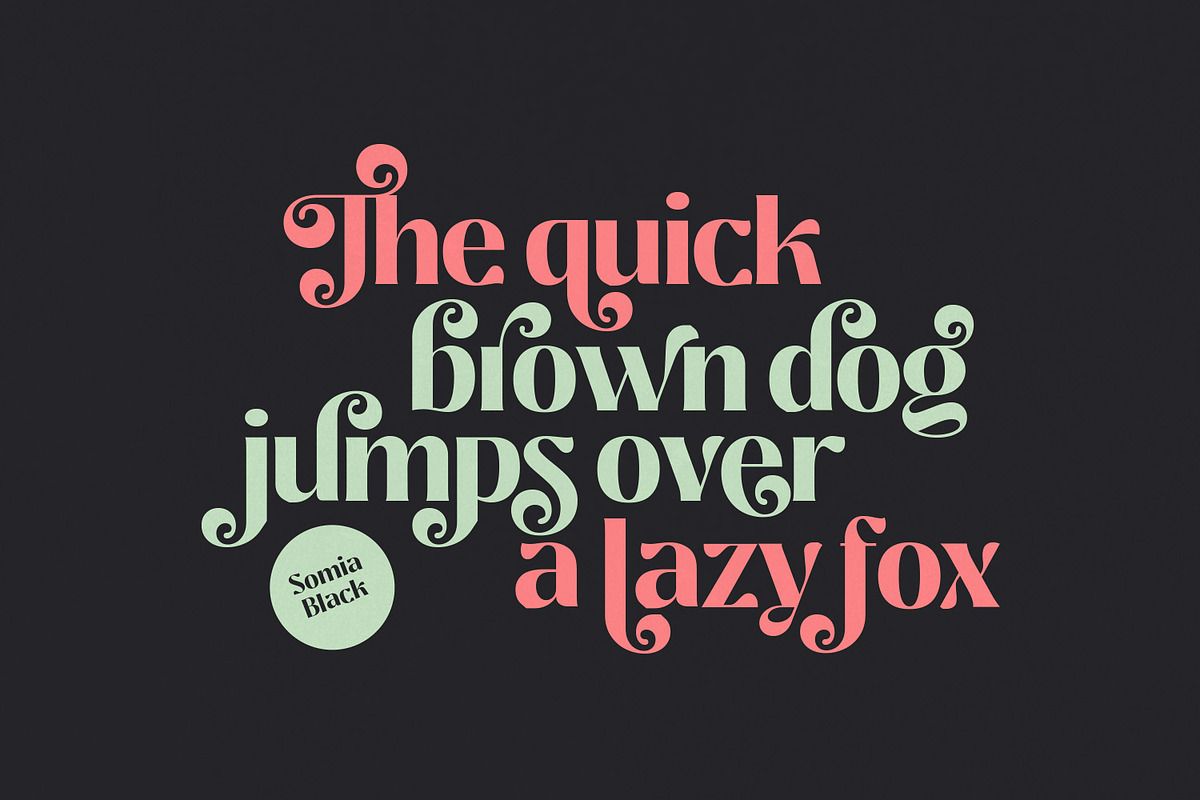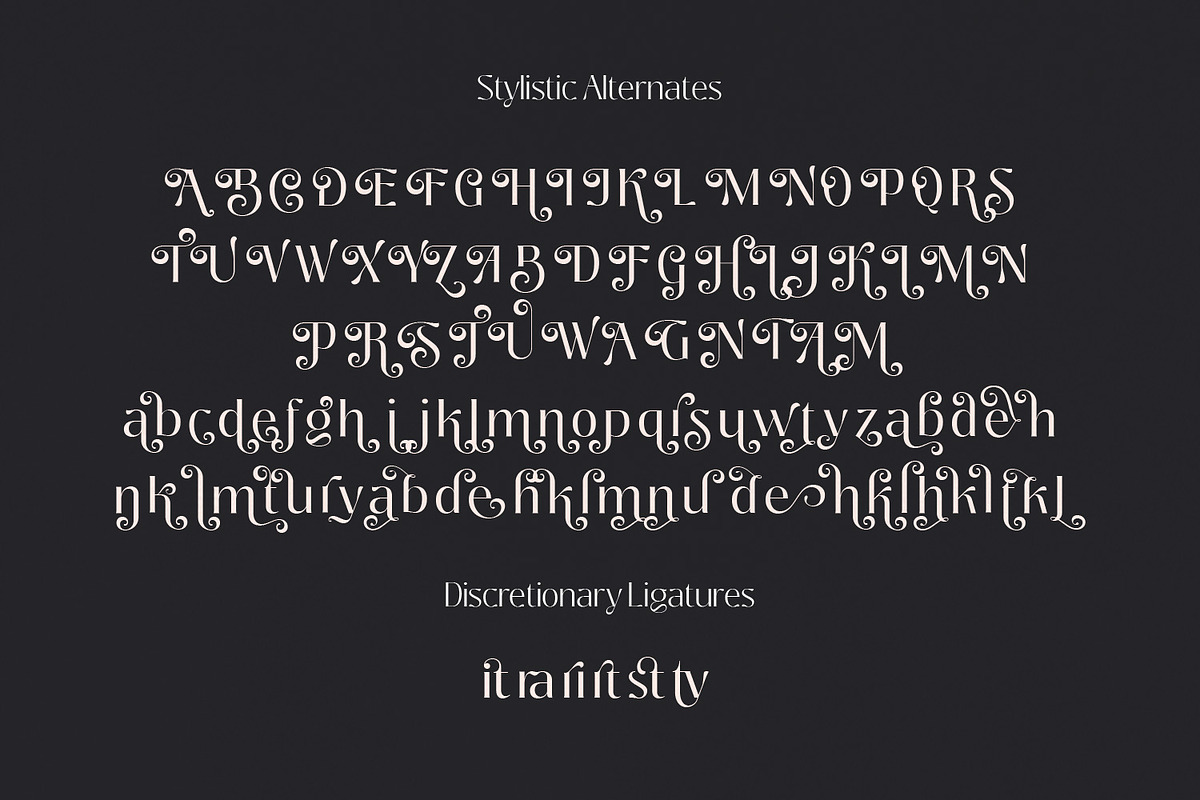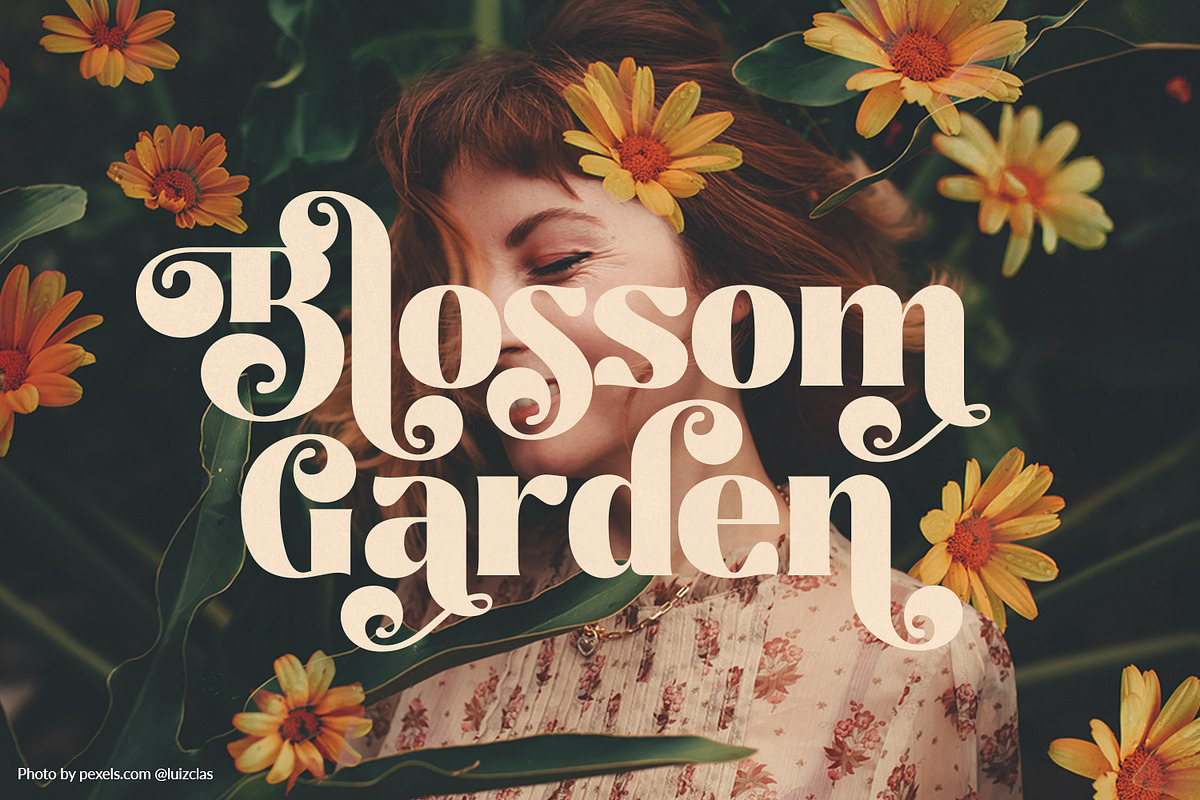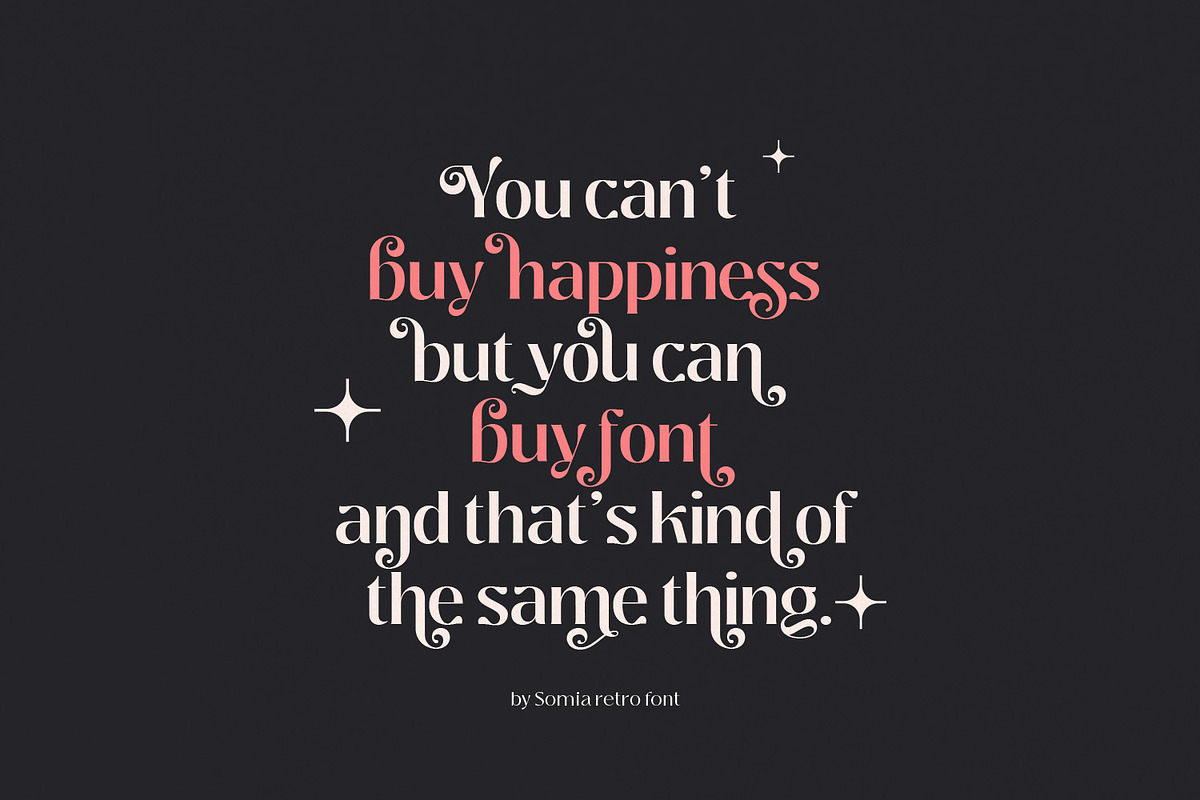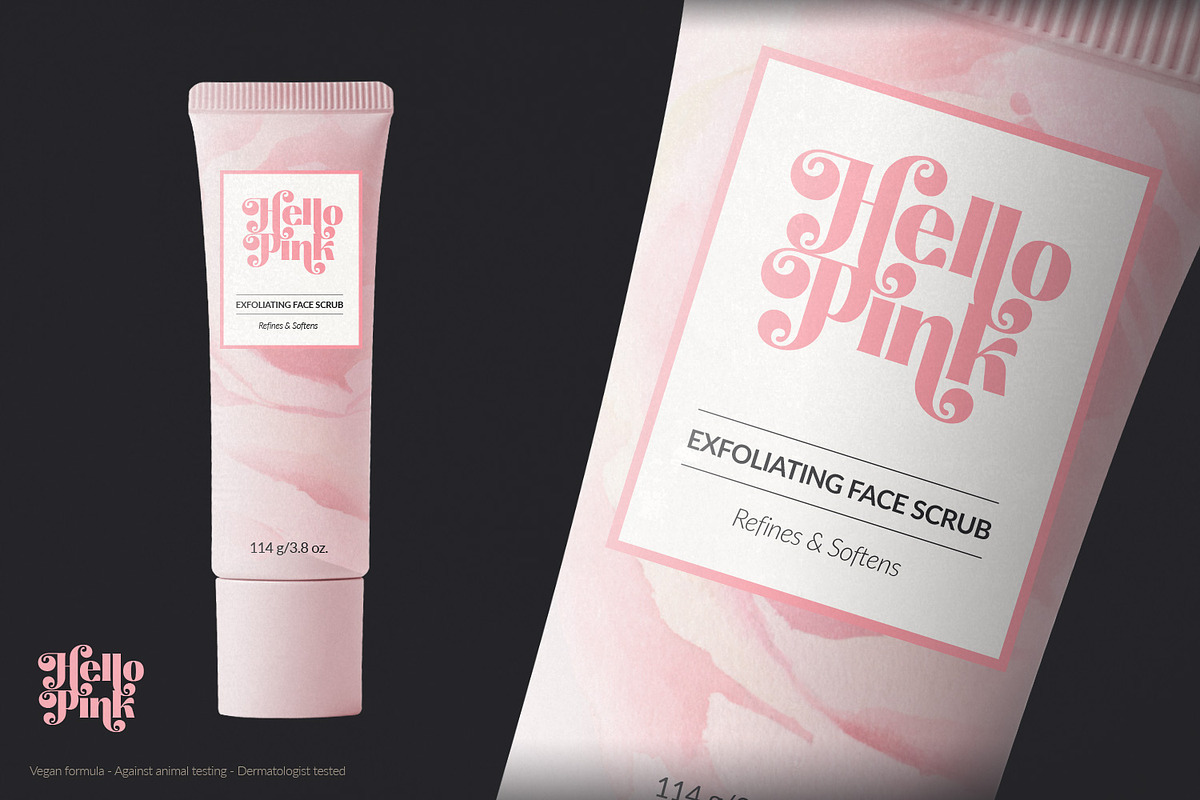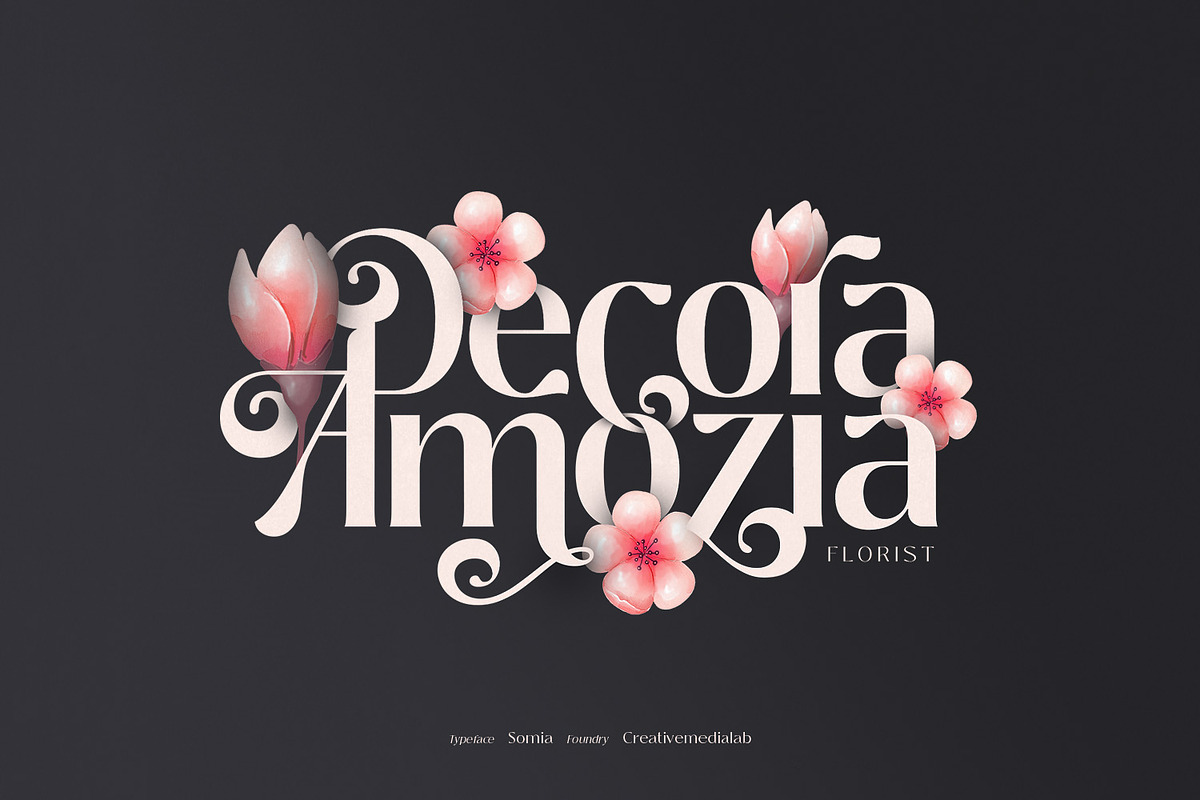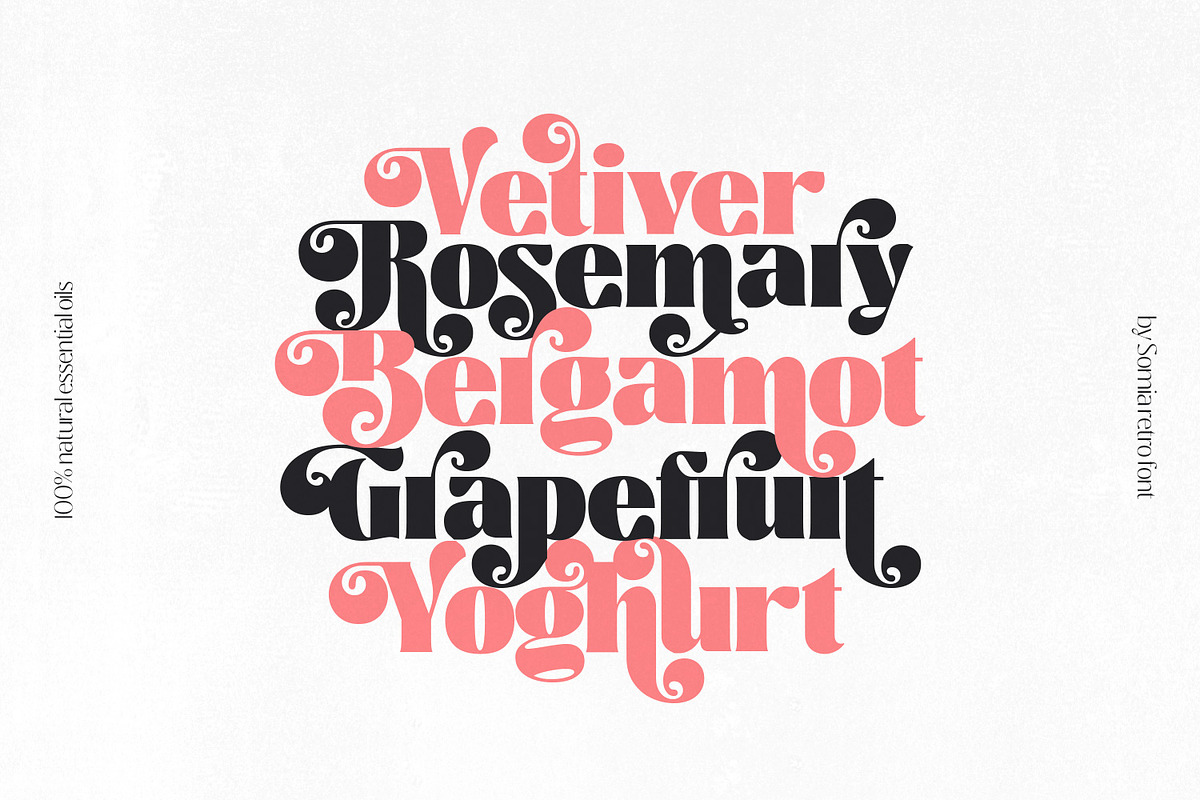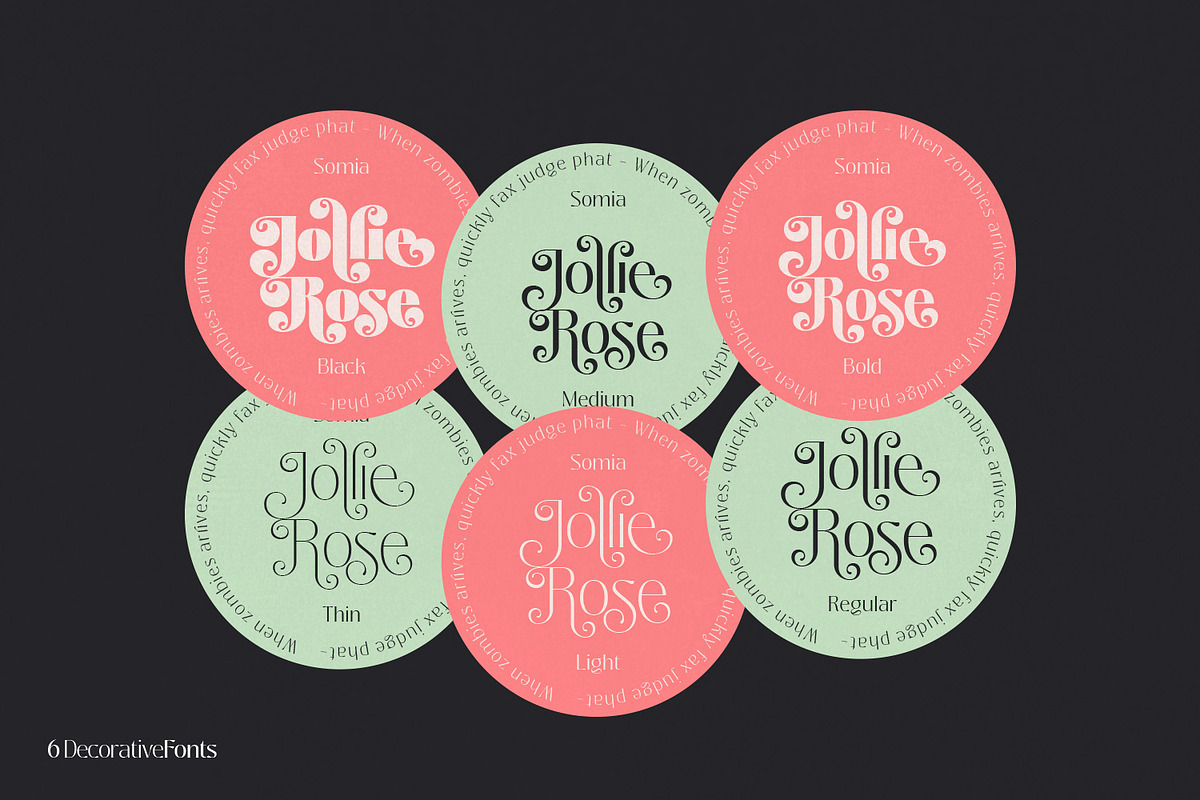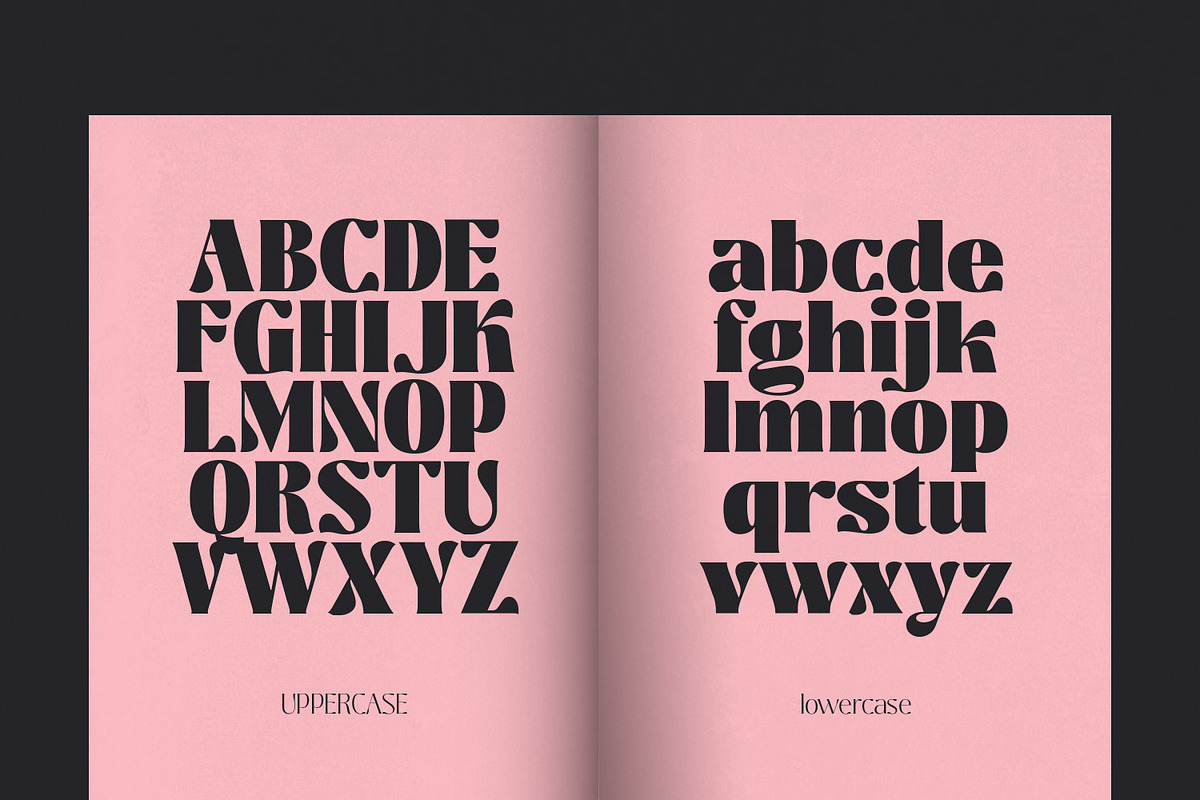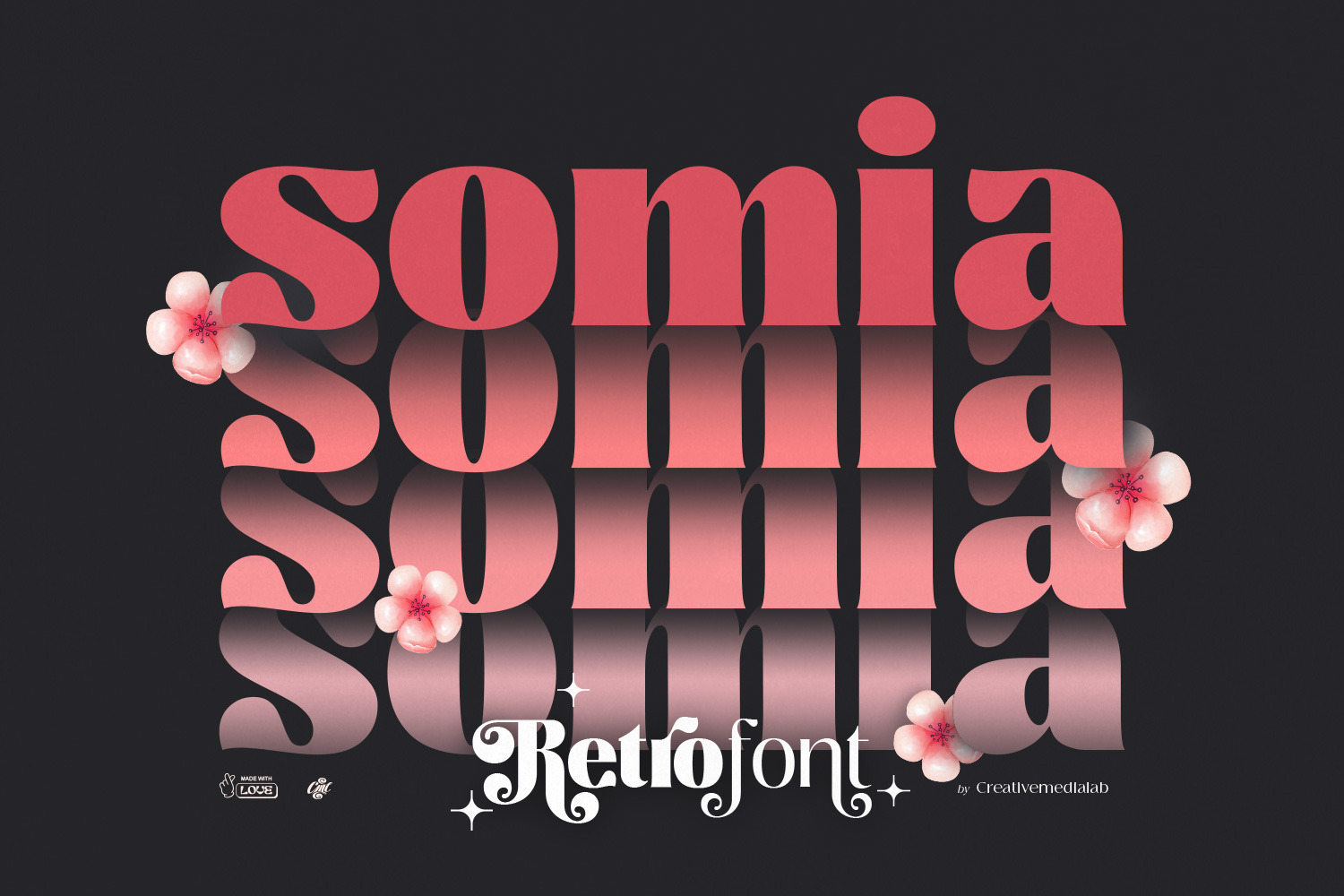
Somia - Decorative Retro Font
Somia font is a modern, attractive and beautiful font. It has many alternates characters with nice curves that you can arrange to create a nice logo lettering or use as a poster display. Add a few alterations to it to make beautiful eye-catching words.
Somia font is best for logo lettering, headlines, product packaging, t-shirt design, wedding theme, poster, book covers, wedding invitations, Christmas and more.